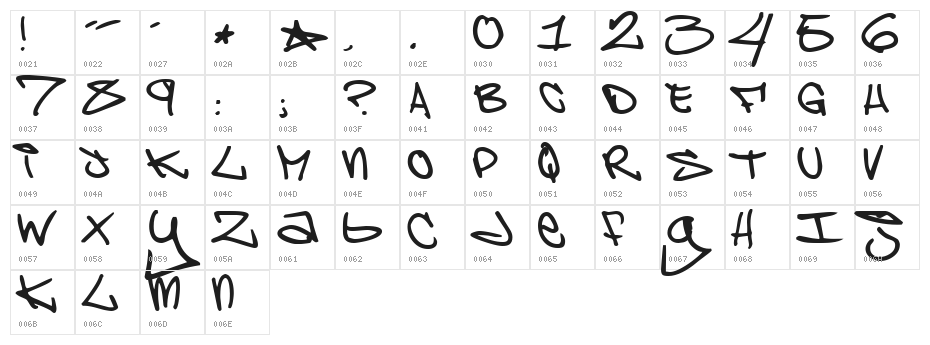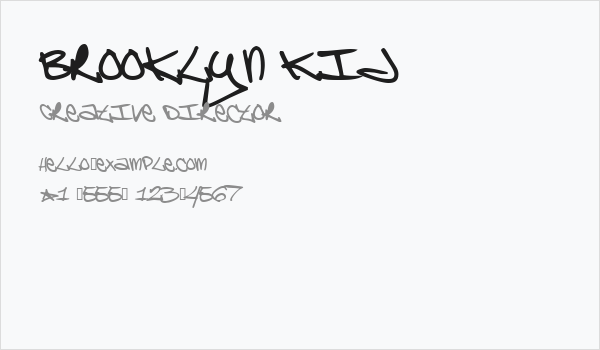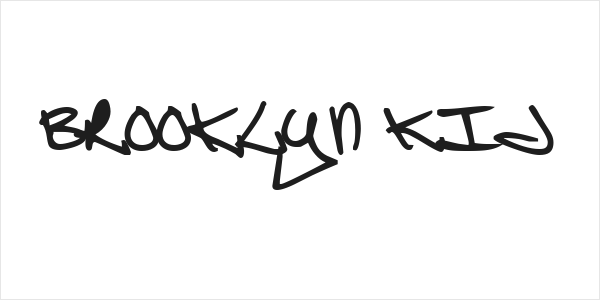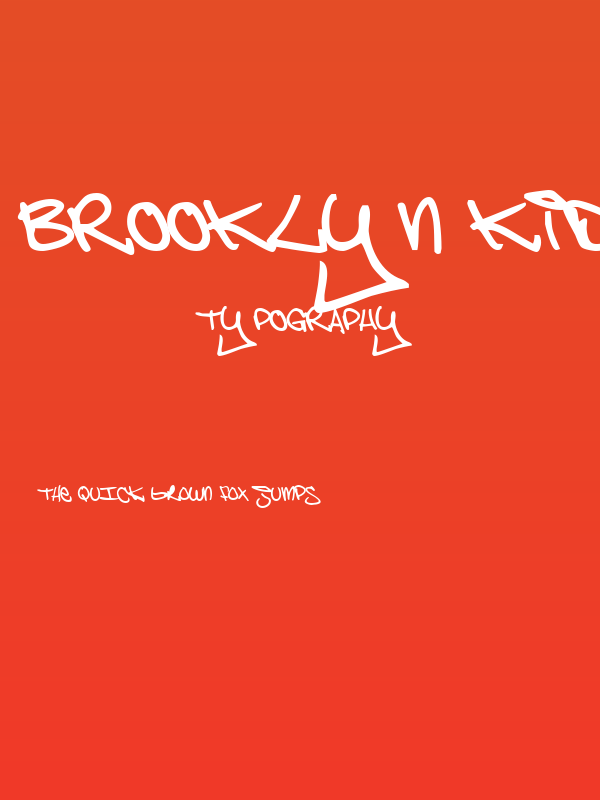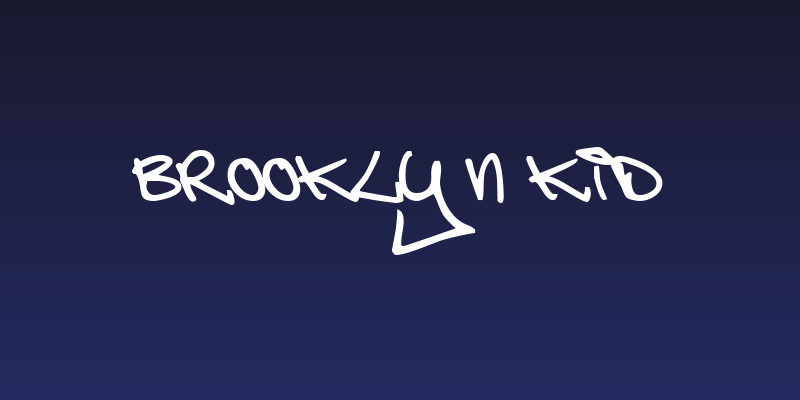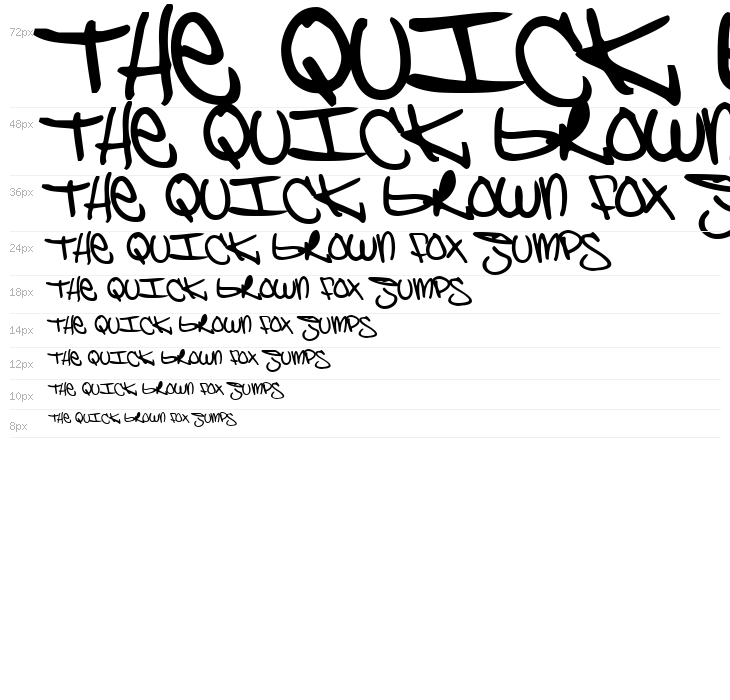
Brooklyn Kid Font
Brooklyn Kid Description
This font exudes a dynamic and urban flair, reminiscent of graffiti art. The characters are bold and expressive, with a hand-drawn quality that suggests movement and spontaneity. The uppercase and lowercase letters maintain a consistent style, with exaggerated curves and sharp angles that create a sense of energy and rebellion. The numbers and special characters follow suit, adding to the overall cohesive look. This font is perfect for projects that aim to capture a youthful, edgy, and artistic vibe. Its unique style makes it stand out, making it ideal for creative and unconventional designs.
| Overall Style | Urban, Artistic, Edgy |
| Use Case | Logos, Posters, Album covers |
| Proposed Projects | Street art designs, music album covers, urban-themed posters, and edgy branding projects. |